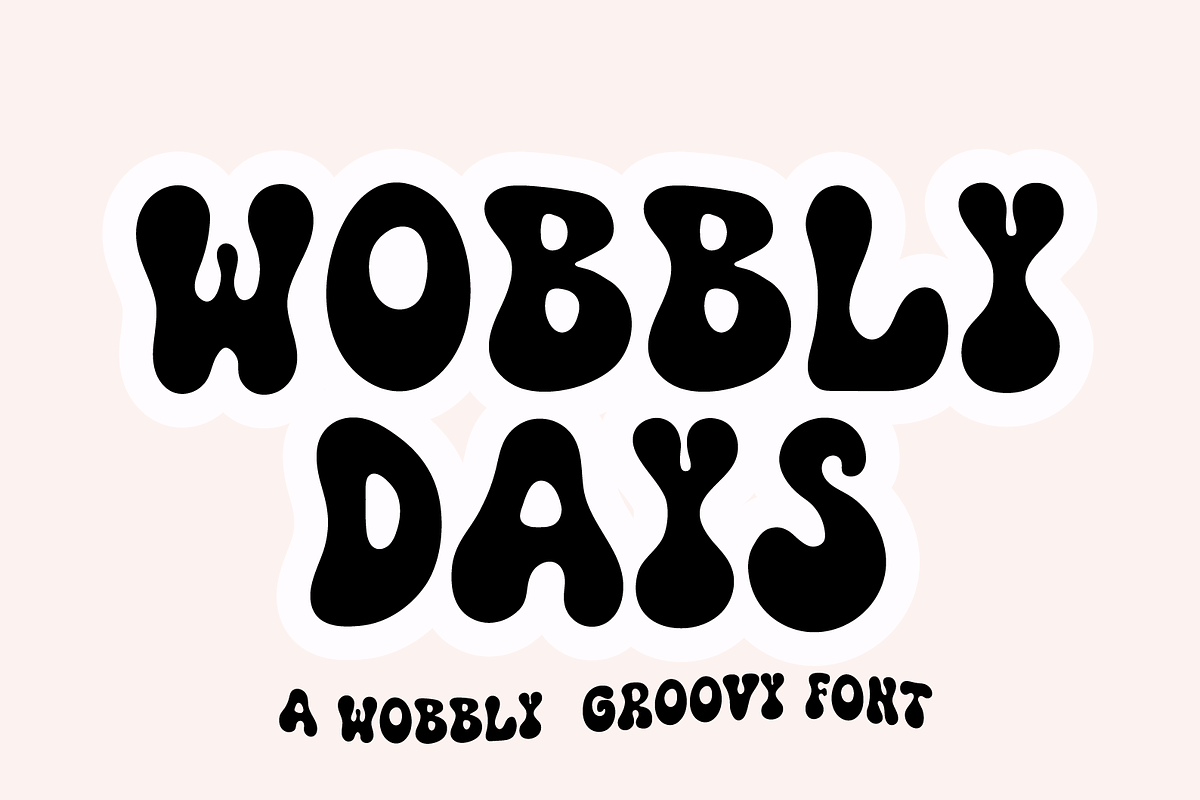
Wobbly Days A Woobly Groovy Font Free Download
Wobbly Days Font Free Download is a fun, groovy, and slightly unpredictable typeface bursting with retro vibes and personality. With its wavy letterforms, playful curves, and 70s-inspired style, Wobbly Days is perfect for posters, music festival branding, retro packaging, T-shirt designs, social media graphics, and anything that needs a funky, feel-good twist.
Designed to dance across the page, Wobbly Days Font Free Download brings energy and movement to your typography. Its whimsical, hand-drawn feel makes it perfect for standout headlines and creative branding that doesn’t take itself too seriously.
Whether you're designing for a vintage-themed project, a colorful product launch, or a bold creative campaign, Wobbly Days delivers joy and grooviness with every letter. It pairs great with simple sans-serifs or psychedelic color palettes for maximum retro impact.